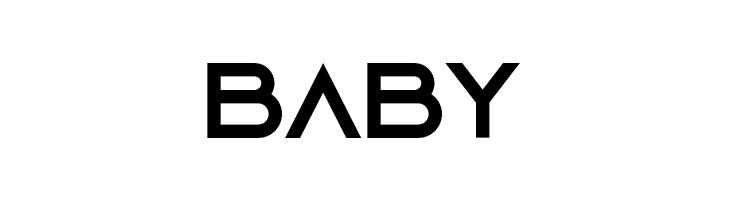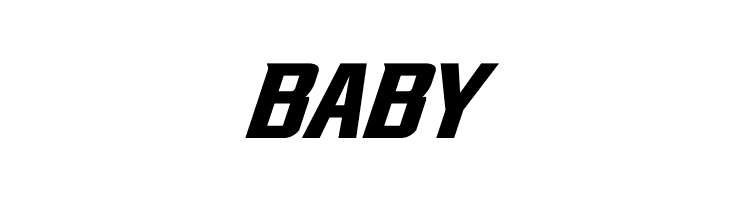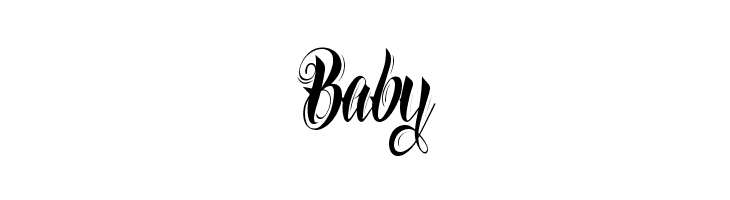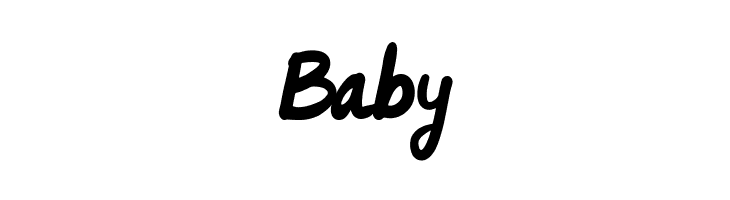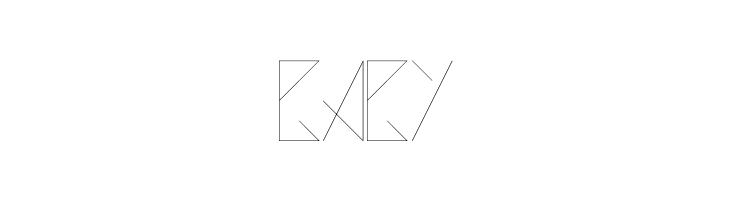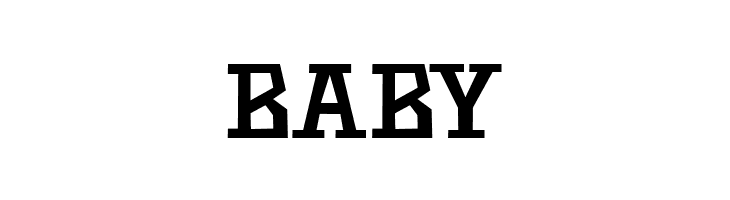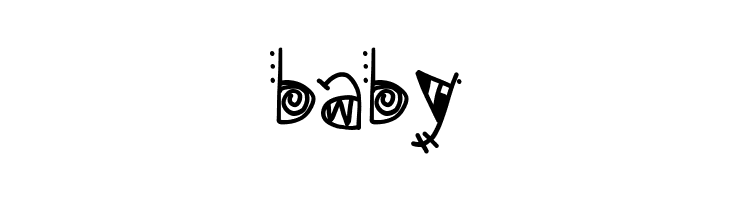
A decorative script font with elegant swirls and flourishes.
A bold, handwritten font with a playful and casual style.
A dynamic and elegant script font with fluid, cursive letterforms.
A bold, oblique font with a modern, dynamic style.
A geometric, minimalistic font with sharp angles and straight lines.
A geometric, modern font with clean lines and a futuristic aesthetic.
A bold, decorative font with tribal-inspired geometric patterns.
A decorative font inspired by Aztec art, featuring bold, intricate designs.
A bold, geometric font with angular, tribal-inspired elements.
A bold, angular font with a geometric, maze-like design.